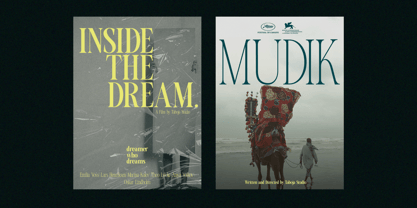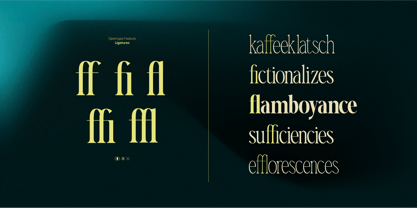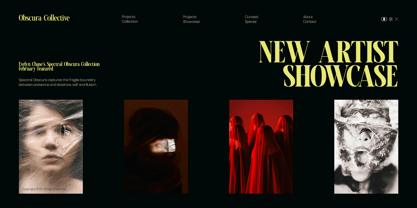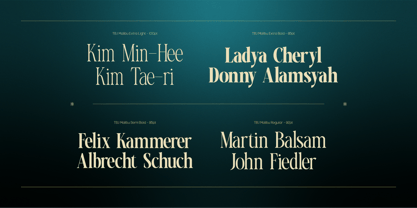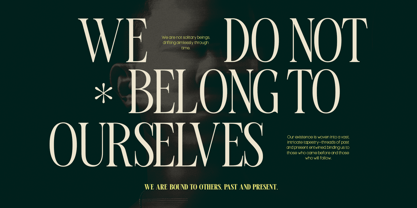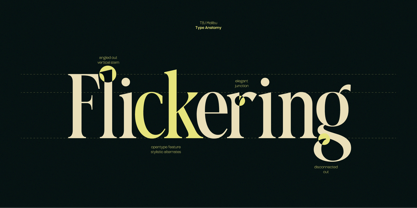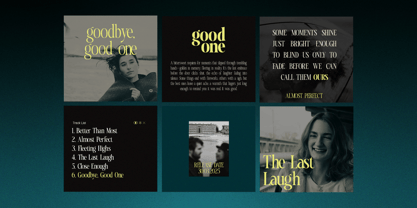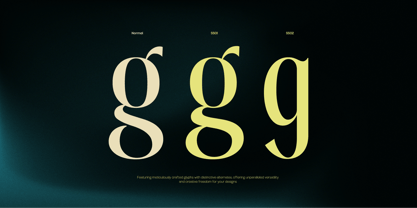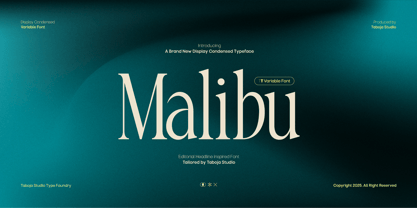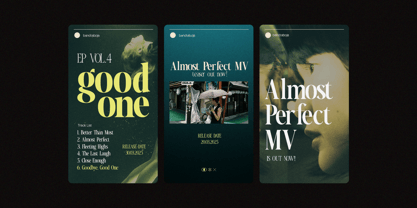
TBJ Malibu Condensed Serif
by Taboja Studio
The TBJ Malibu Condensed Serif Font Family was designed by Yusilo Oktaprima Ardani and published by Taboja Studio. TBJ Malibu Condensed Serif contains 8 styles and family package options.
TBJ Malibu is a stunning display font with Condensed style and Variable Font capability, to set a new standard in the world of display typography. This font not only offers an elegant look with slim and tall proportions, but also provides tremendous flexibility with its 8 variable font variants.
Each variant allows for width and weight adjustments, allowing designers to create compositions that truly fit their needs-from lighter, subtle typography, to more dramatic bold versions. The elegant green-blue graded background further strengthens the visual appeal of this font, showcasing its aesthetic potential that is perfect for branding, logos, editorials and other creative projects.
TBJ Malibu is not just a font, but a flexible and characterful visual expression tool, designed to give an exclusive and contemporary feel in a wide range of design applications.
- TBJ Malibu Thin, Extra Light, Light, Regular, Medium, Bold, Extra Bold
- Uppercase & Lowercase
- Numerals and Punctuation
- Accented characters
- Multilingual Support